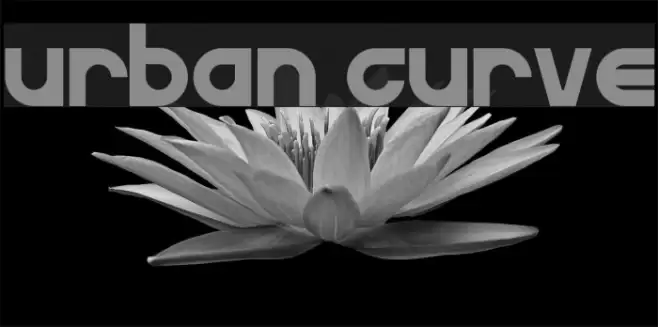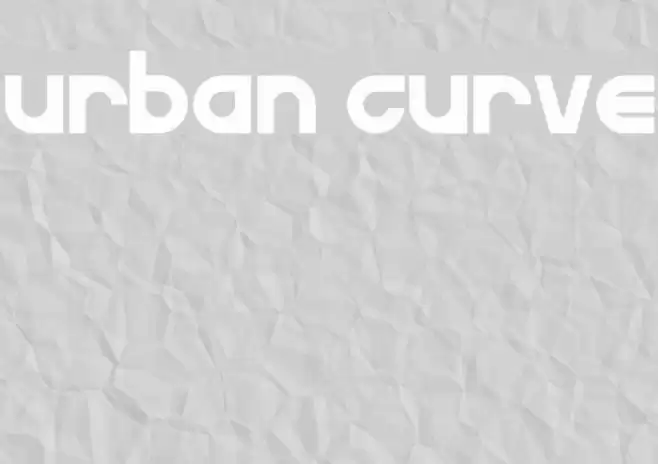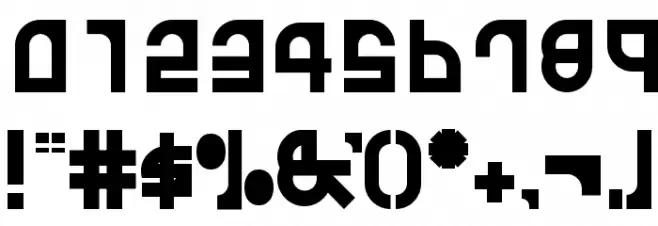
Urban Curve Font
Urban Curve Description
This font features a bold, geometric design with a modern and urban aesthetic. The characters are constructed with thick, uniform strokes and rounded edges, creating a sense of cohesion and balance. The design is highly stylized, with a futuristic feel that is both eye-catching and distinctive. The uppercase and lowercase letters maintain a consistent style, while the numerals and special characters complement the overall look. The font's boldness and unique character shapes make it ideal for projects that require a strong visual impact.
A bold, geometric font with a modern, urban aesthetic from Uncategorized fonts.
- Proposed Projects: Ideal for branding, posters, headlines, and any project needing a strong, modern visual impact.